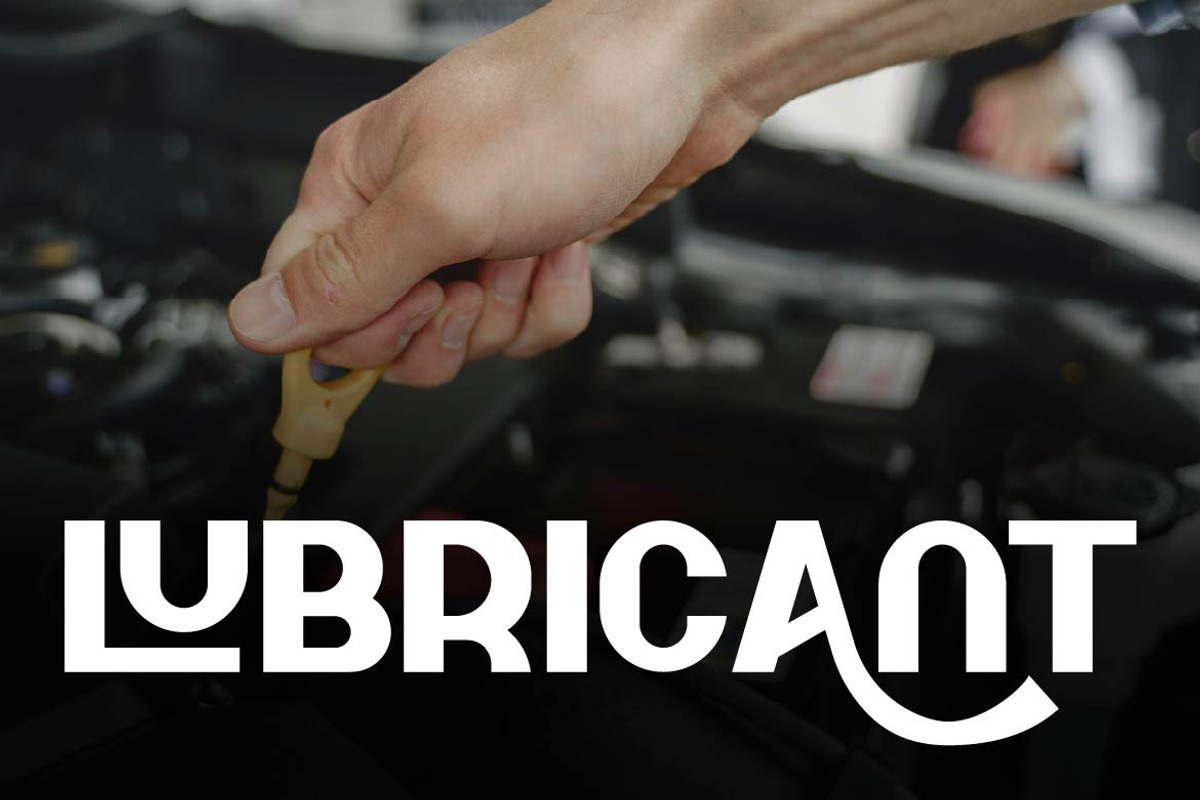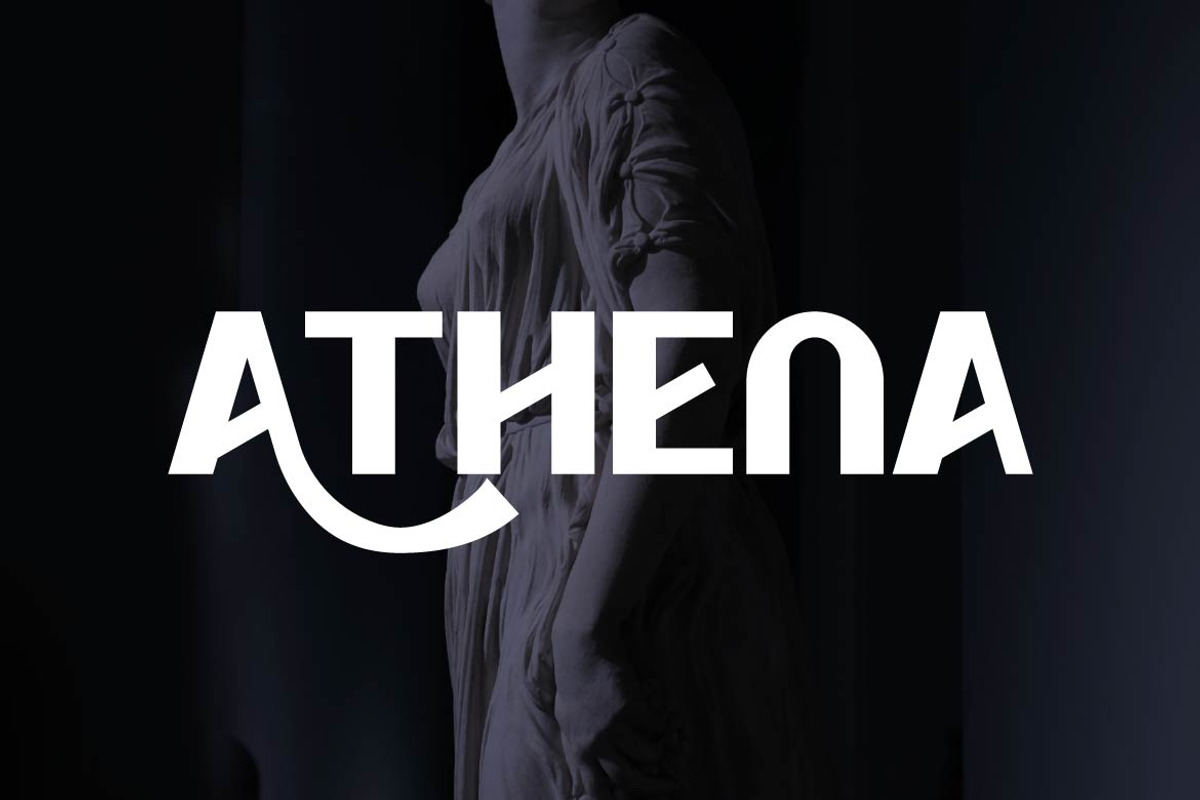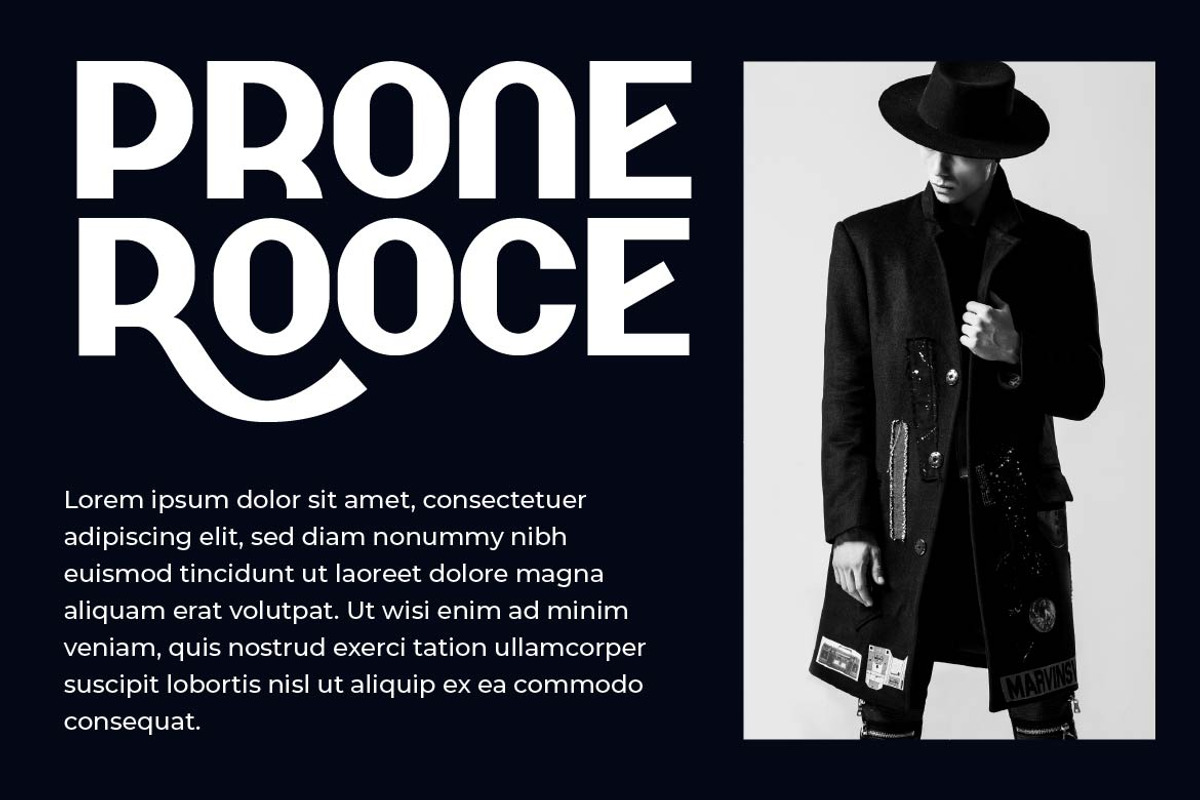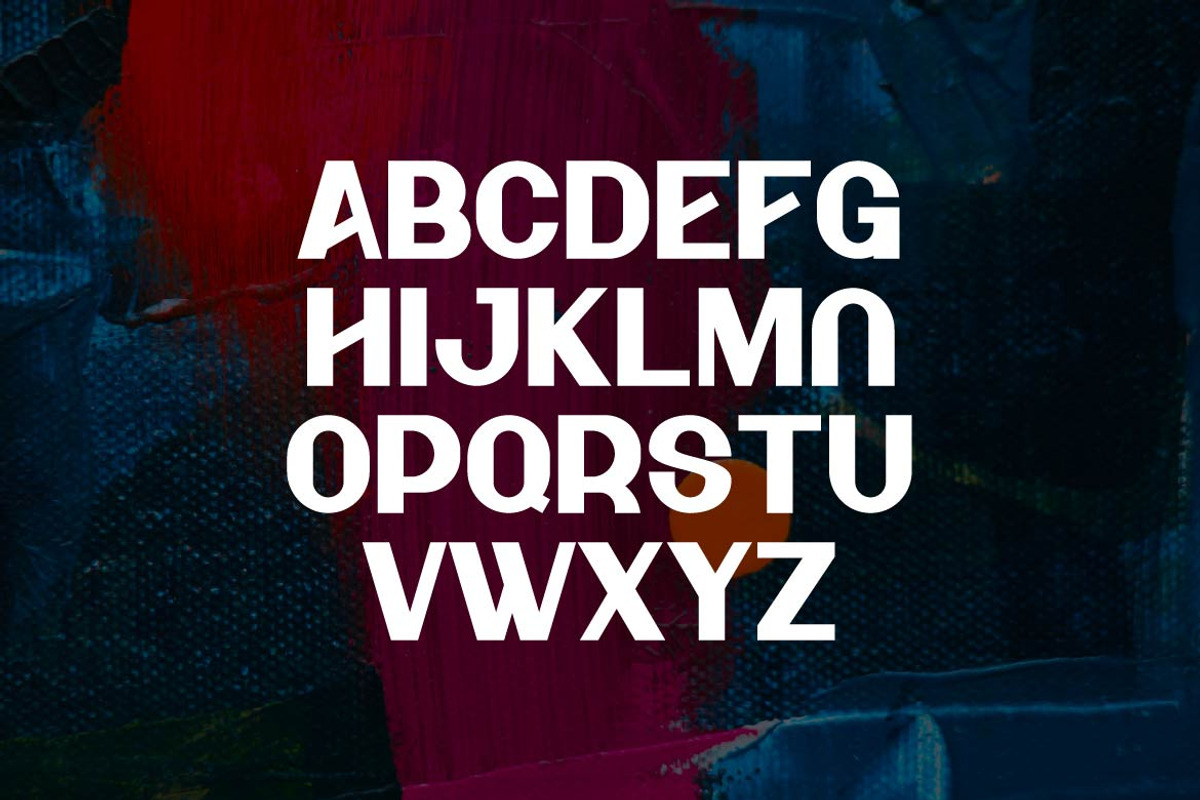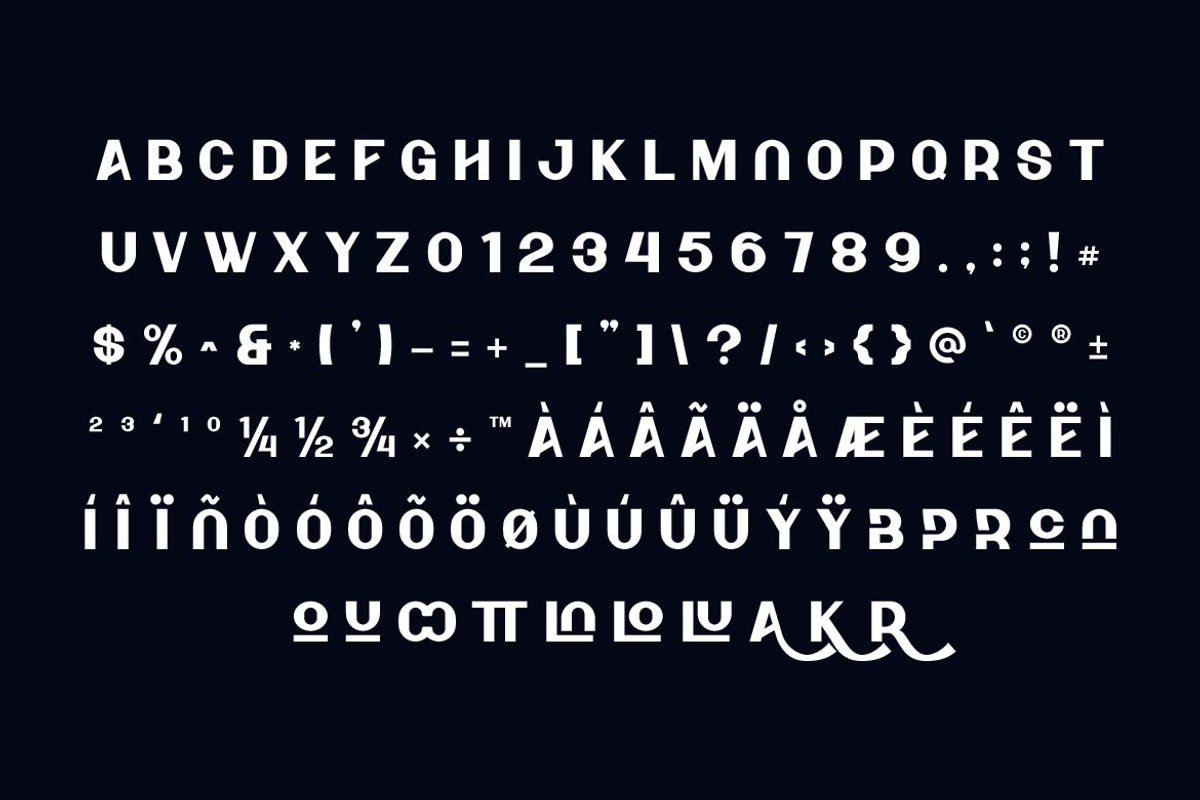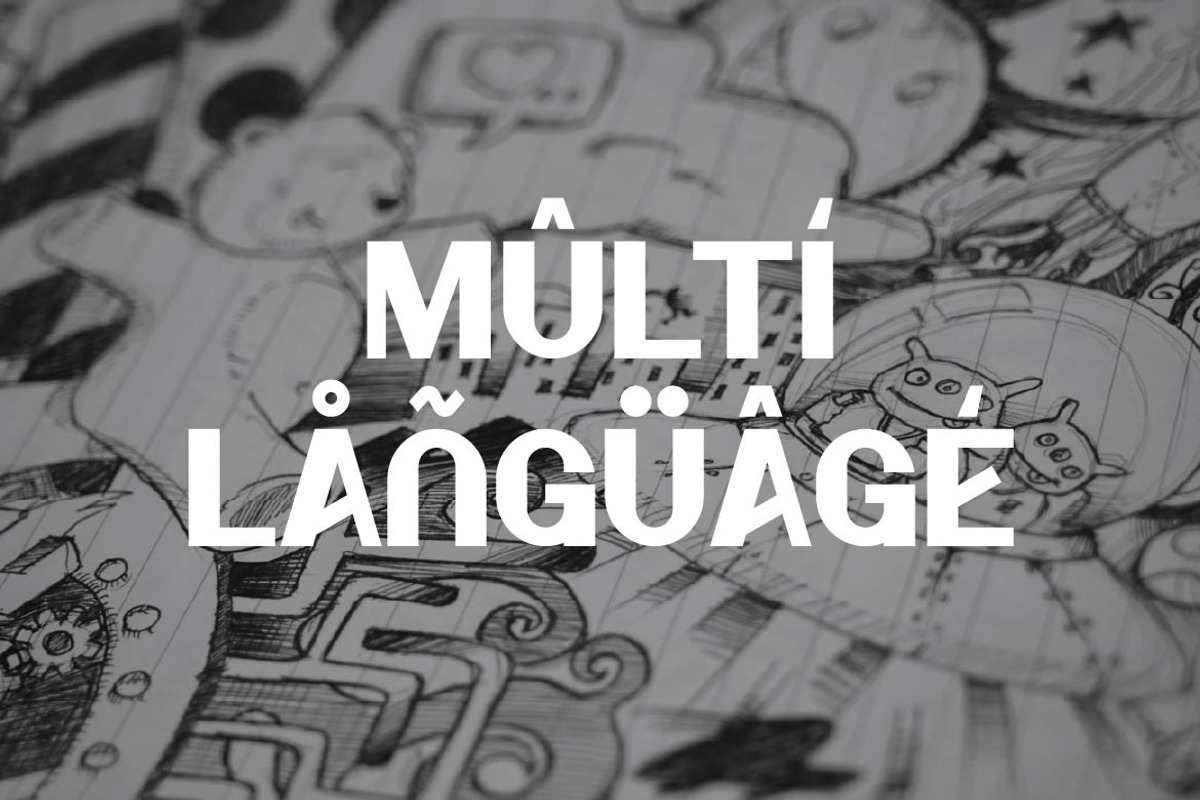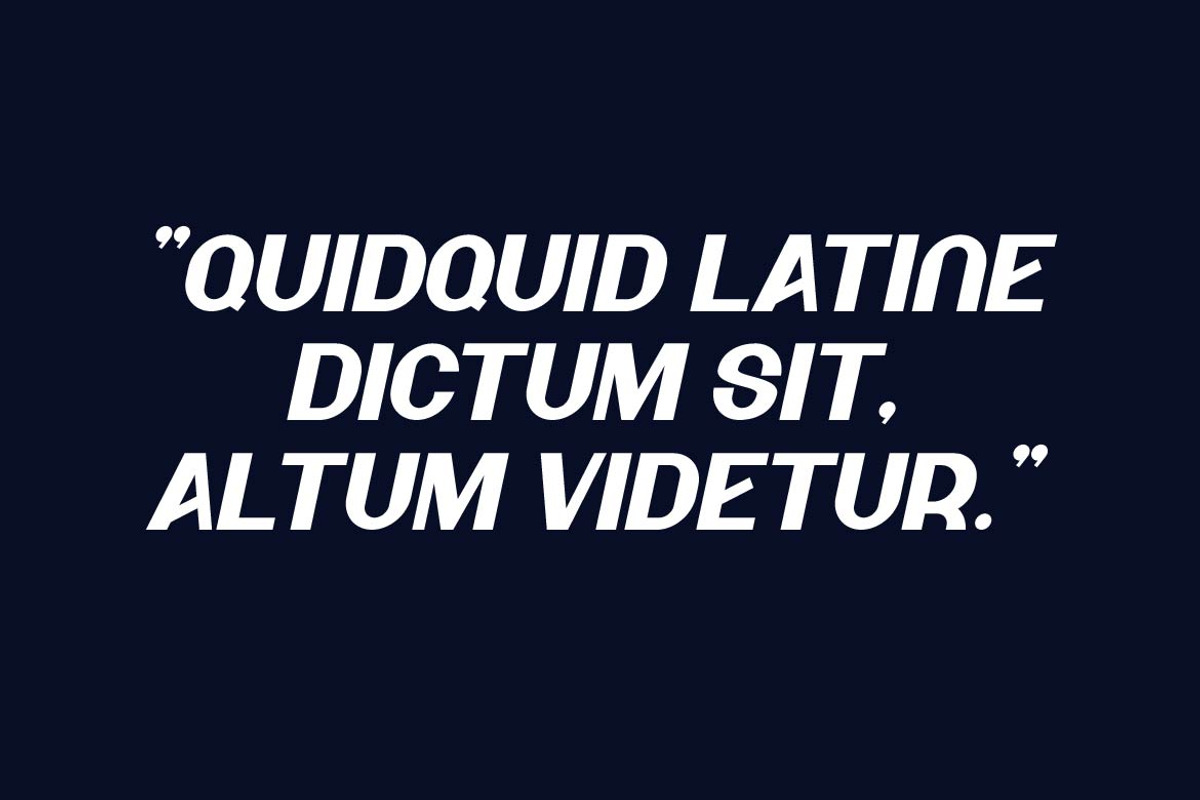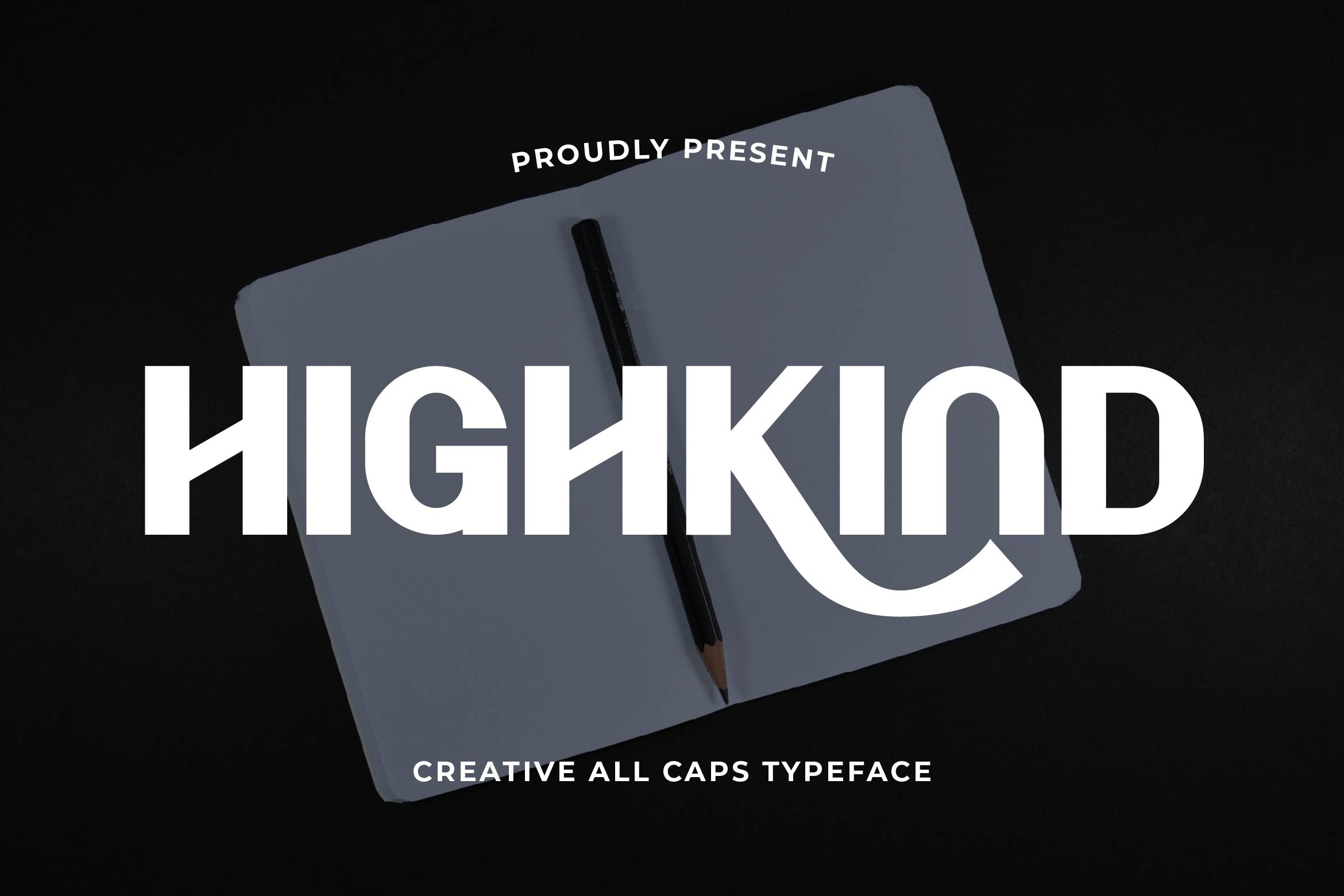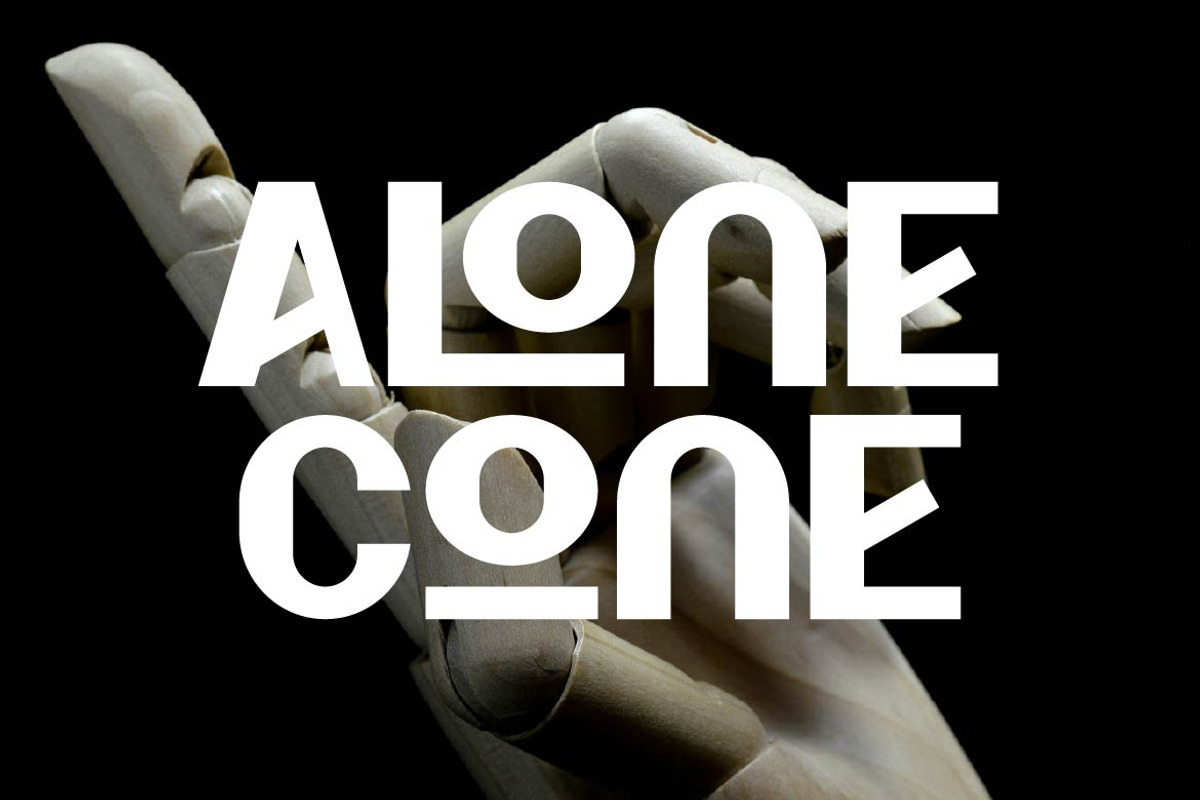
Highkind Creative Display Font
Highkind is a creative display sans serif font crafted for bold expression and visual impact. With strong geometric shapes, playful proportions, and eye-catching letterforms, Highkind stands at the intersection of modern design and artistic flair. It’s made to break the monotony — perfect for headlines, posters, packaging, album covers, branding, and any project that demands attention.